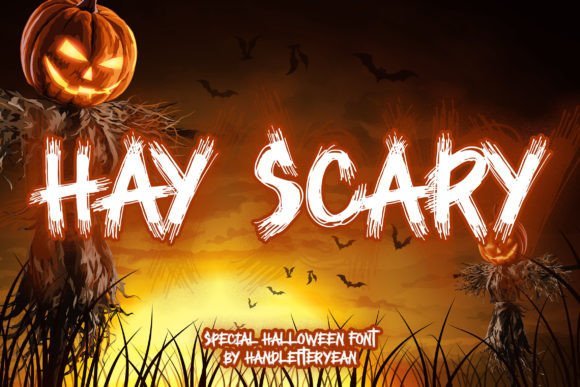
Halloween Vibes, Creative Style
As the leaves change colors and the nights grow darker, I start to crave the spooky atmosphere of Halloween. The perfect excuse to let my creativity run wild and get crafty with design. There’s something magical about conjuring up eerie visuals that transport us to a world of fantasy and fun.
Speaking of which, I stumbled upon the perfect font to elevate my Halloween designs – the Hay Scary Font. This enchanting display font is designed to make your designs stand out, and with its creative style, it’s perfect for adding a touch of Halloween magic to your projects. Whether you’re a seasoned designer or a DIY enthusiast, the Hay Scary Font is a valuable addition to your creative arsenal.
So, why not give your Halloween designs a boost with the Hay Scary Font? It’s the perfect way to make this spooky season even more festive and fun.
Hay Scary Font Key Features
- Font Family: Hay Scary Font is a sans-serif font family designed for display use.
- Unique Characteristics: Features a unique blend of geometric and organic elements, resulting in a distinctive and eye-catching design.
Hay Scary Font Review
First of all, I want to mention that I’m not a fan of spooky fonts, but Hay Scary Font has some interesting features that caught my attention. ✨ The font’s quirky design and uneven lines give it a unique, hand-drawn feel that could be perfect for Halloween-themed projects or anything that needs a bit of a creepy touch.
One thing that works well in Hay Scary Font is its versatility. ✨ You can use it for a variety of purposes, from titles and headings to body text. It also comes in a range of weights, which is useful for creating a sense of hierarchy in your designs.
- ⚠️ The font may not be suitable for body text, as it can be difficult to read in large quantities.
- ⚠️ The uneven lines and quirky design may not be to everyone’s taste, and some people may find it distracting.
- ⚠️ The font may not be as professional-looking as some other options, which could be a problem for certain types of projects.
Overall, I think Hay Scary Font is a fun and quirky option that could be useful for certain types of projects. While it has some limitations, it’s definitely worth checking out if you’re looking for a unique font with a bit of personality.
The Hay Scary Font is perfect for creating spooky and eerie designs, such as Halloween-themed invitations or spooky movie posters. To get the most out of it, experiment with different font sizes and colors to create a dramatic effect.
Alternatives to Hay Scary Font
Bad Script
Bad Script is a handwritten font that mimics the look of handwritten notes. It is ideal for use in titles, headings, and quotes where a personal touch is needed. Bad Script has a more elegant and sophisticated look compared to Hay Scary Font, which is more rough and distressed.
Cream Soda is a unique and playful font that is reminiscent of old-timey signs and advertisements. It is perfect for use in titles, headings, and labels where a touch of nostalgia is desired. Unlike Hay Scary Font, Cream Soda has a more whimsical and carefree feel.
Great Vibes is a handwritten font with a relaxed and casual feel. It is ideal for use in titles, headings, and quotes where a laid-back tone is needed. Great Vibes has a more modern and sleek look compared to Hay Scary Font, which is more vintage and distressed.
Playball
Playball is a playful and energetic font that is perfect for use in titles, headings, and labels where a fun and lively tone is desired. Unlike Hay Scary Font, Playball has a more bold and eye-catching feel, making it ideal for use in sports and gaming related designs.
Q: Can I customize Hay Scary Font for my project?